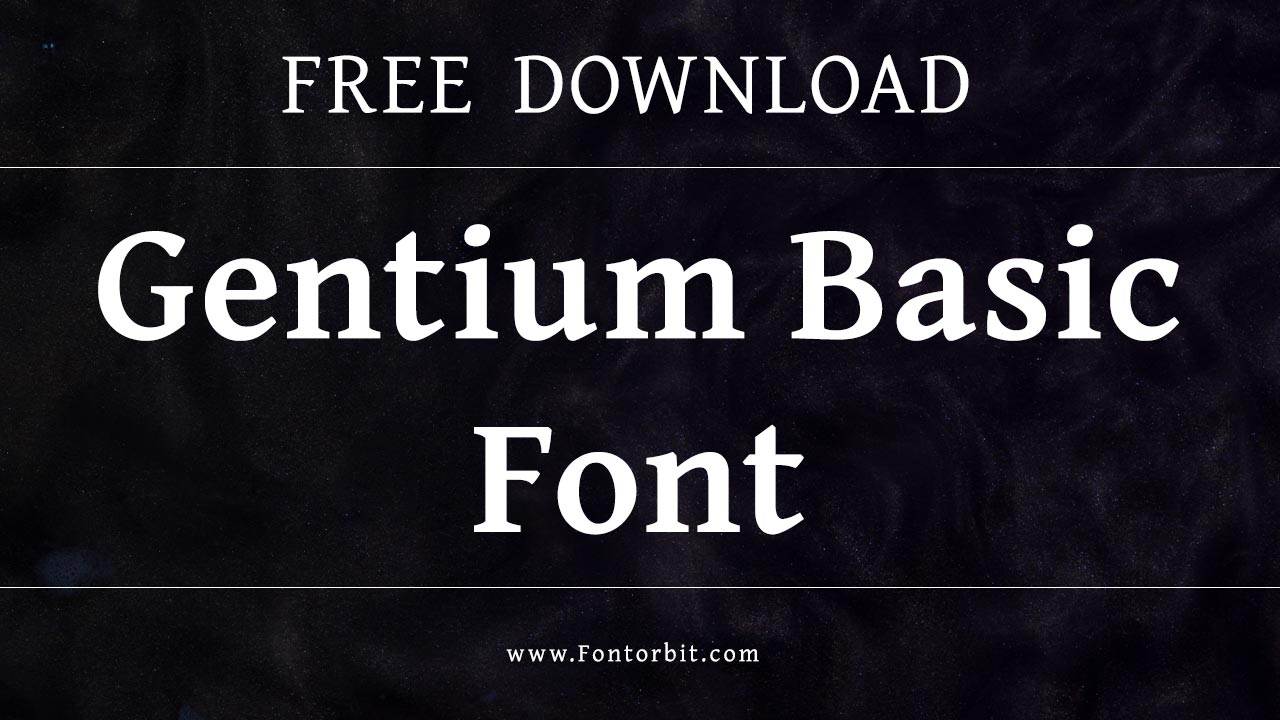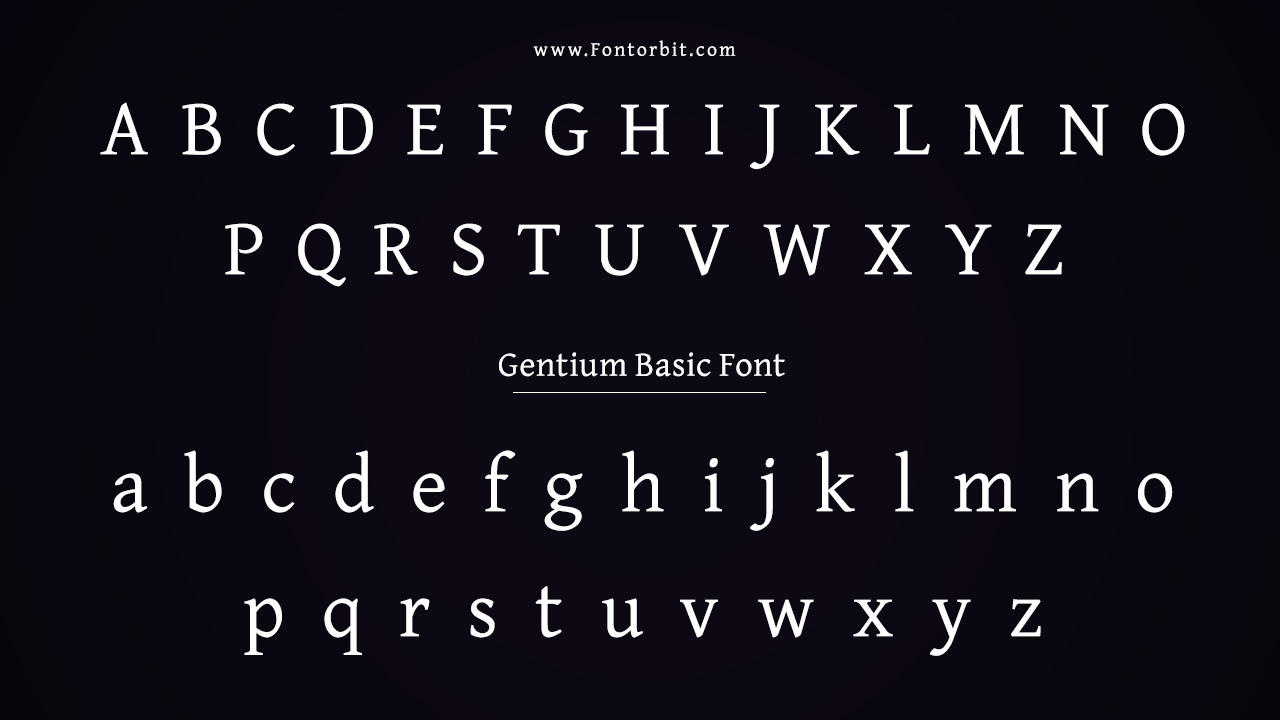
Gentium Basic is a serif typeface designed by Victor Gaultney, originally released in 2003. Known for its simplicity and readability, the Gentium Basic font belongs to the Gentium family, developed with a focus on linguistic diversity and legibility in digital and print media. This typeface was designed to support various Latin, Greek, and Cyrillic scripts, making it a popular choice for global language use.
Gentium Basic Family Includes
Gentium Basic offers versatile font styles within its family that are suitable for different design contexts. It balances classic readability with modern usability, designed especially for academic texts, websites, and global communication.
The Gentium Basic family includes:
- Gentium Basic
- Gentium Basic Italic
- Gentium Basic Bold
- Gentium Basic Bold Italic
- Gentium Book Basic
- Gentium Book Basic Italic
- Gentium Book Basic Bold
- Gentium Book Basic Bold Italic
Gentium Basic’s versatility makes it ideal for various formal and professional settings. It is well-suited for use in projects that require extensive text or language versatility, such as:
- Academic papers
- Books and eBooks
- Websites focusing on multilingual content
- Non-profit
- NGO publications
- Educational materials
Gentium Basic is a reliable and versatile serif font focused on global language support. Its clean design and readability make it an excellent choice for academic, professional, and multilingual use. Whether you’re designing for print or digital platforms, this font ensures clarity and professionalism.
2.Is Gentium Basic Suitable For Web Use?
Yes, Gentium Basic is optimized for both print and digital formats, making it ideal for web usage.
3.Does Gentium Basic Support Other Languages?
Yes, it supports a wide range of languages including Latin-based languages, Greek, and Cyrillic scripts.
4.Is There A Bold Version Of Gentium Basic?
Yes, Gentium Basic comes with bold, italic, and bold italic versions.
5.What Is The Best Use Case For Gentium Basic?
It’s best for multilingual texts, academic writing, and global projects that require multiple scripts.